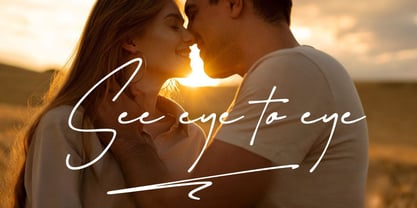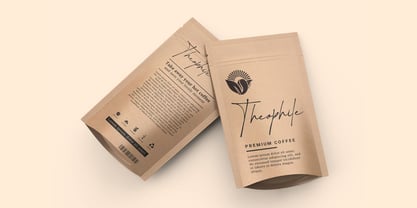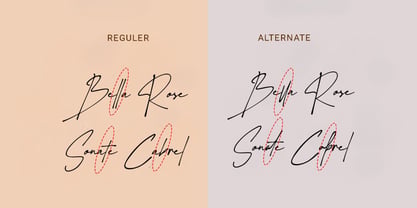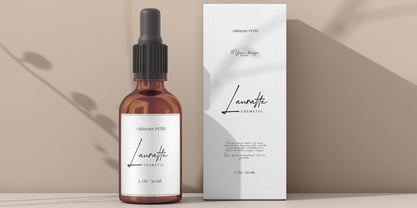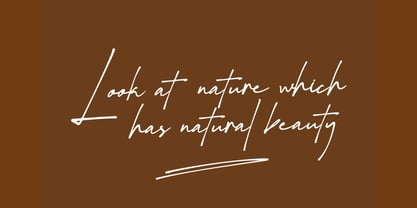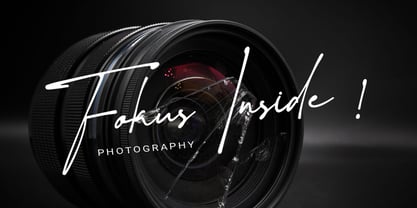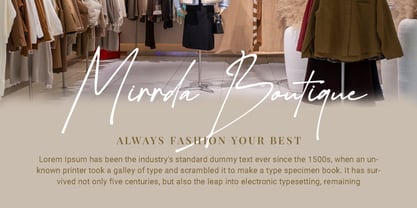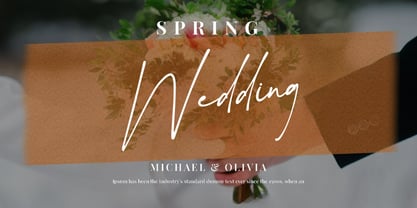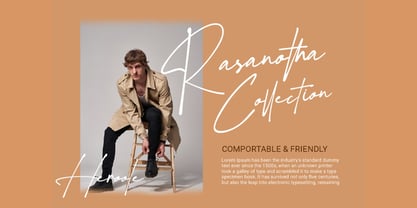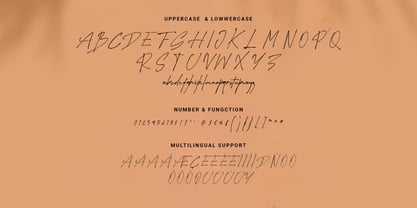
Sunset Beauty
Hello everyone, I would like to introduce Sunset Beauty - Stylish Script Font.
Sunset Beauty - Stylish Script Font with Handmade character. Sunset Beauty - Stylish Script Font , Modern font to make your design project stand out! Sunset Beauty - Stylish Script Font a perfectly choice for any creative endeavor, creating, modern, chic, lifestyle design such as logotype, title, cover, branding, invitations, wedding designs, display and magazine, social media posts, advertisements, printed quotes, product packaging, corporate brand, product designs, labels, photography, watermarks, special events and any other project with modern touch.